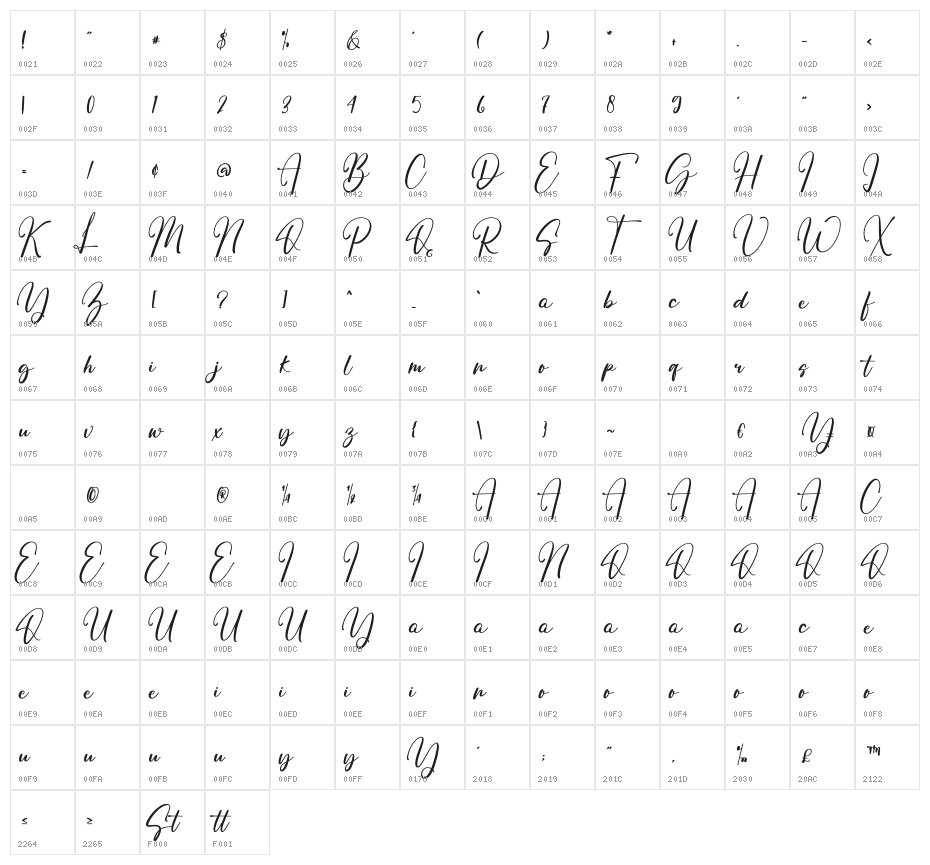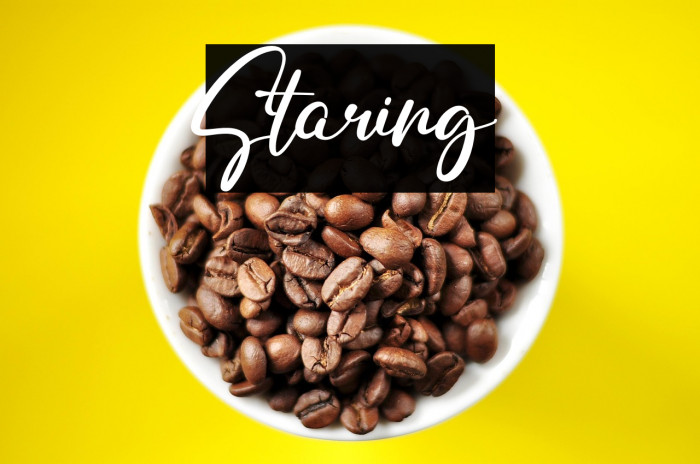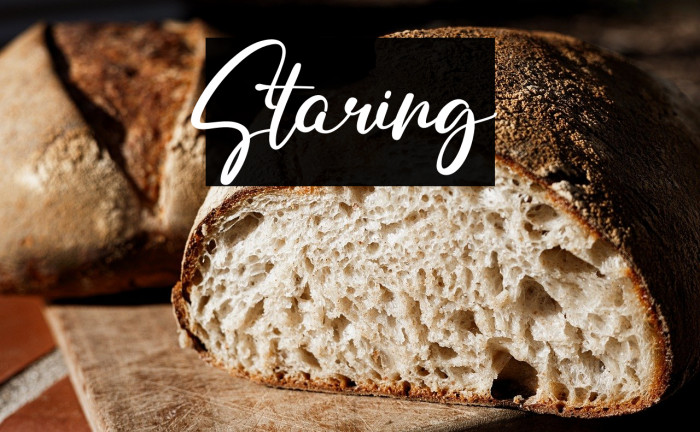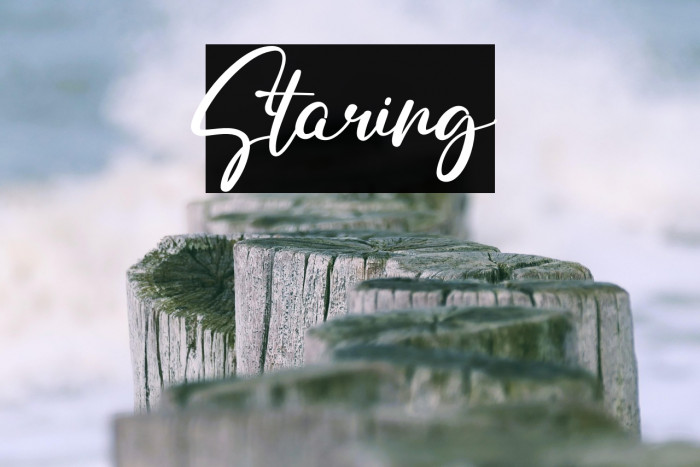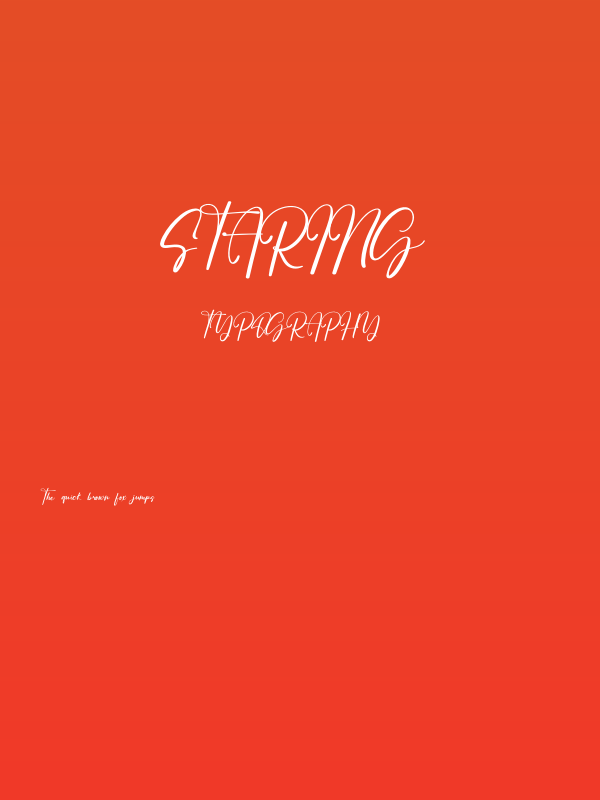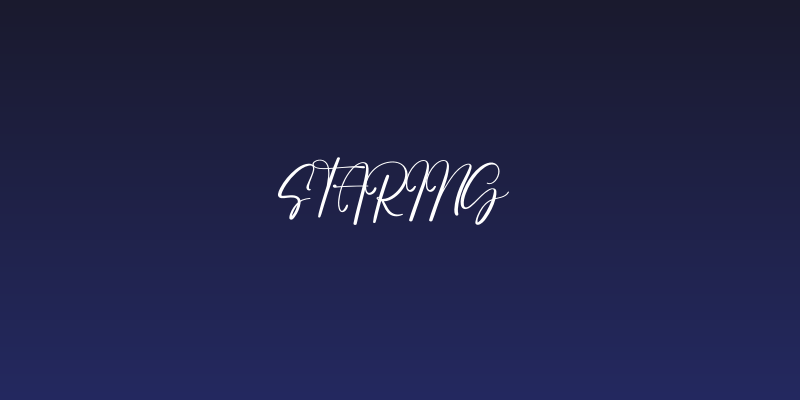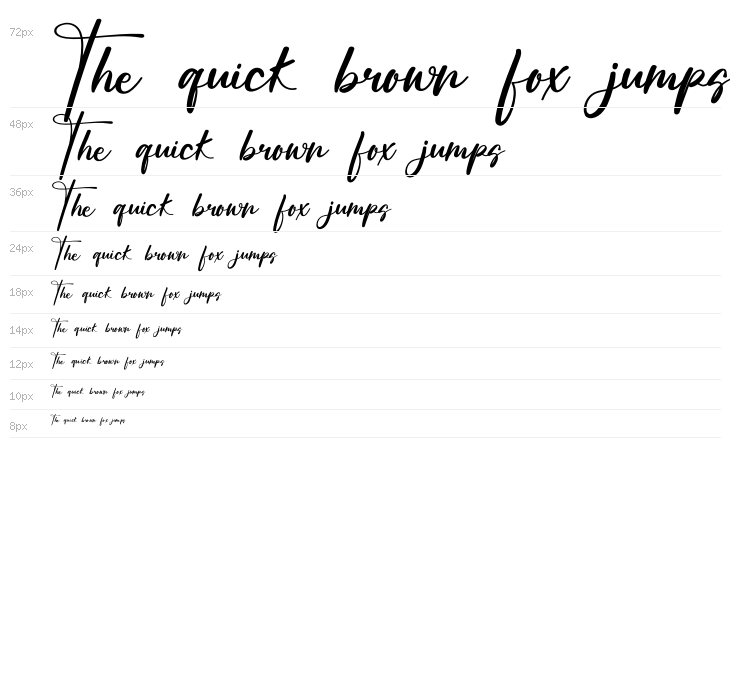
Staring Font
Staring Description
Elegant, flowing script font with high contrast between thick and thin strokes, featuring ornate uppercase letters and smooth, connected lowercase forms. The numerals and punctuation maintain the same calligraphic style, enhancing the font's cohesive appearance.
| Overall Style | Decorative, Elegant, Modern Calligraphy |
| Use Case | Logos, Headlines, Invitations, Decorative text |
| Proposed Projects | Wedding invitations, greeting cards, branding, luxury packaging, event posters, personal signatures. |